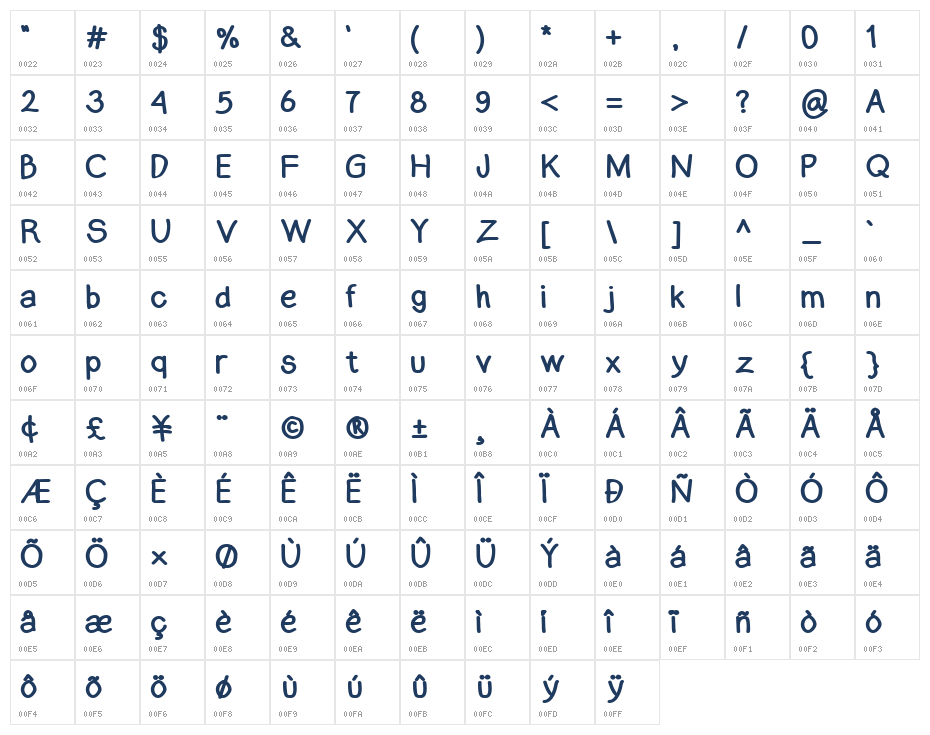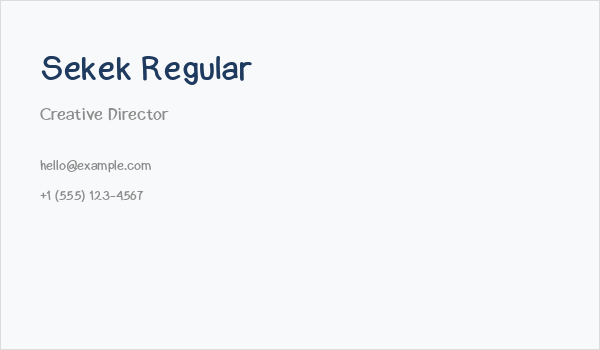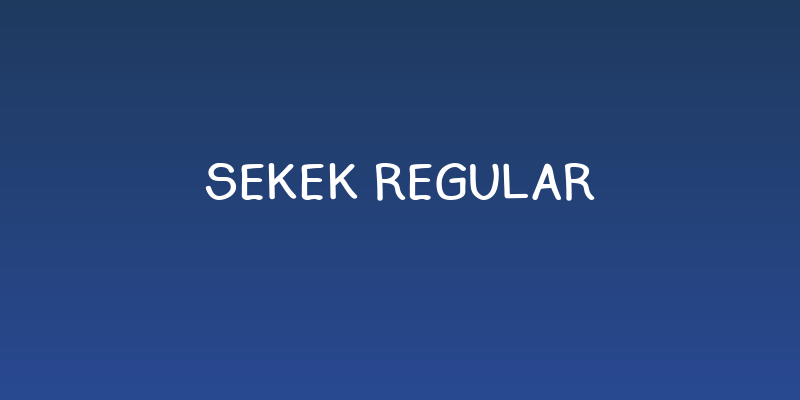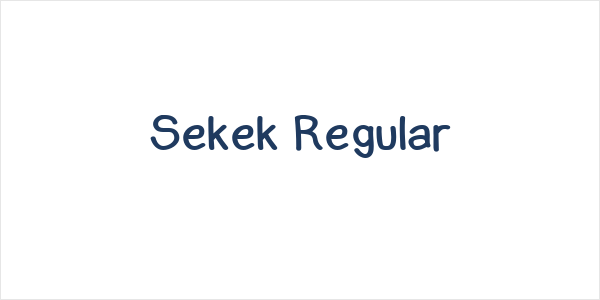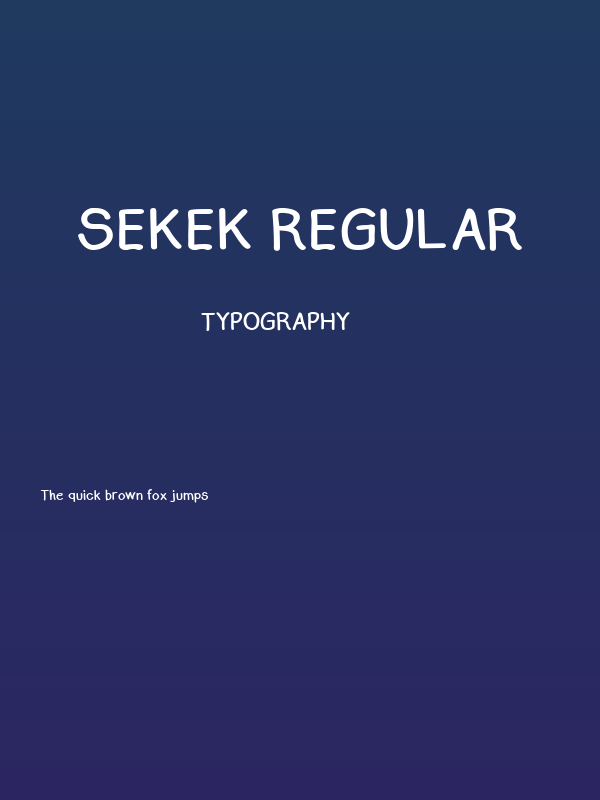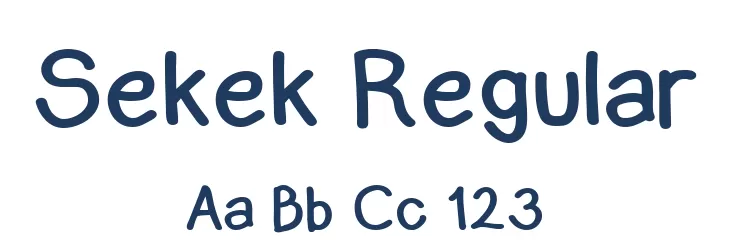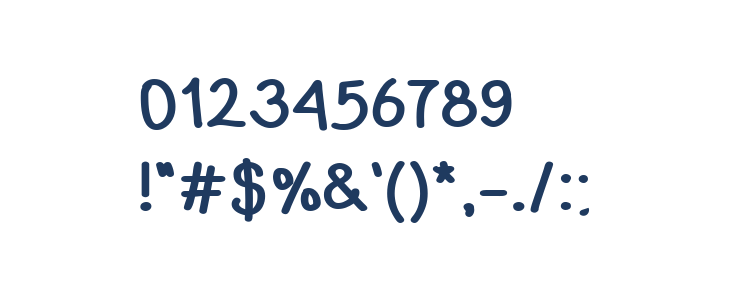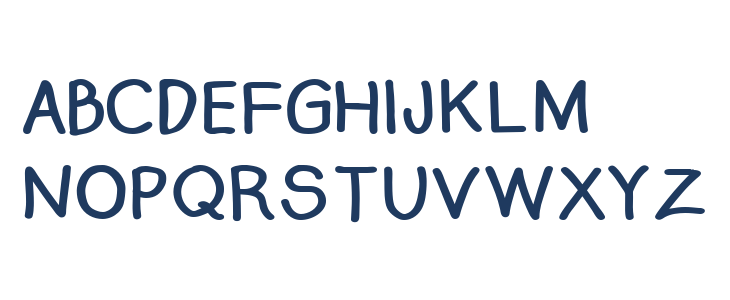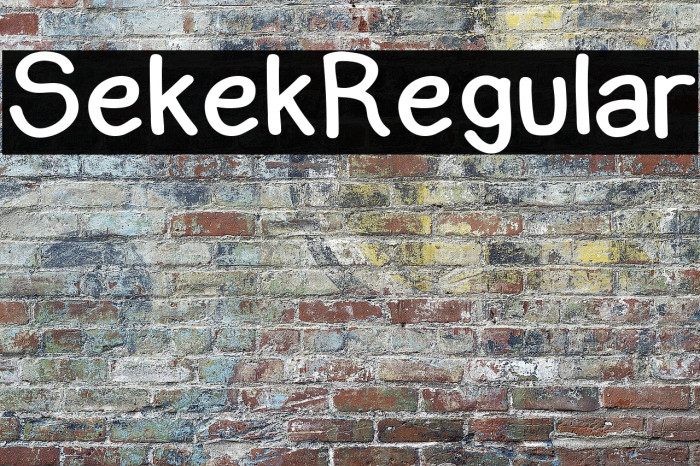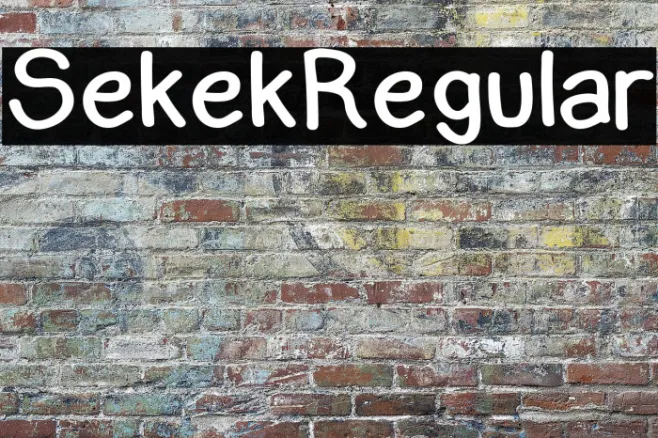
Sekek Regular Font
Sekek Regular Description
A playful, rounded, handwritten style font with a casual and friendly appearance.
| Overall Style | Casual, Friendly, Playful |